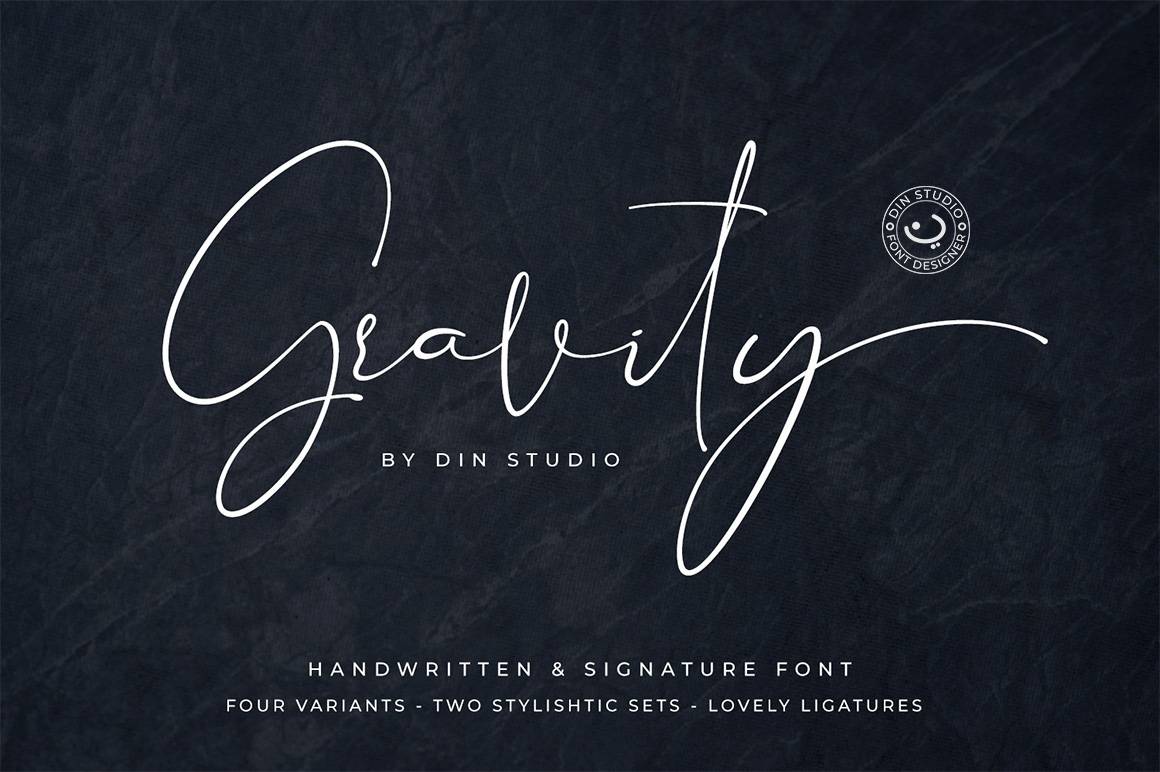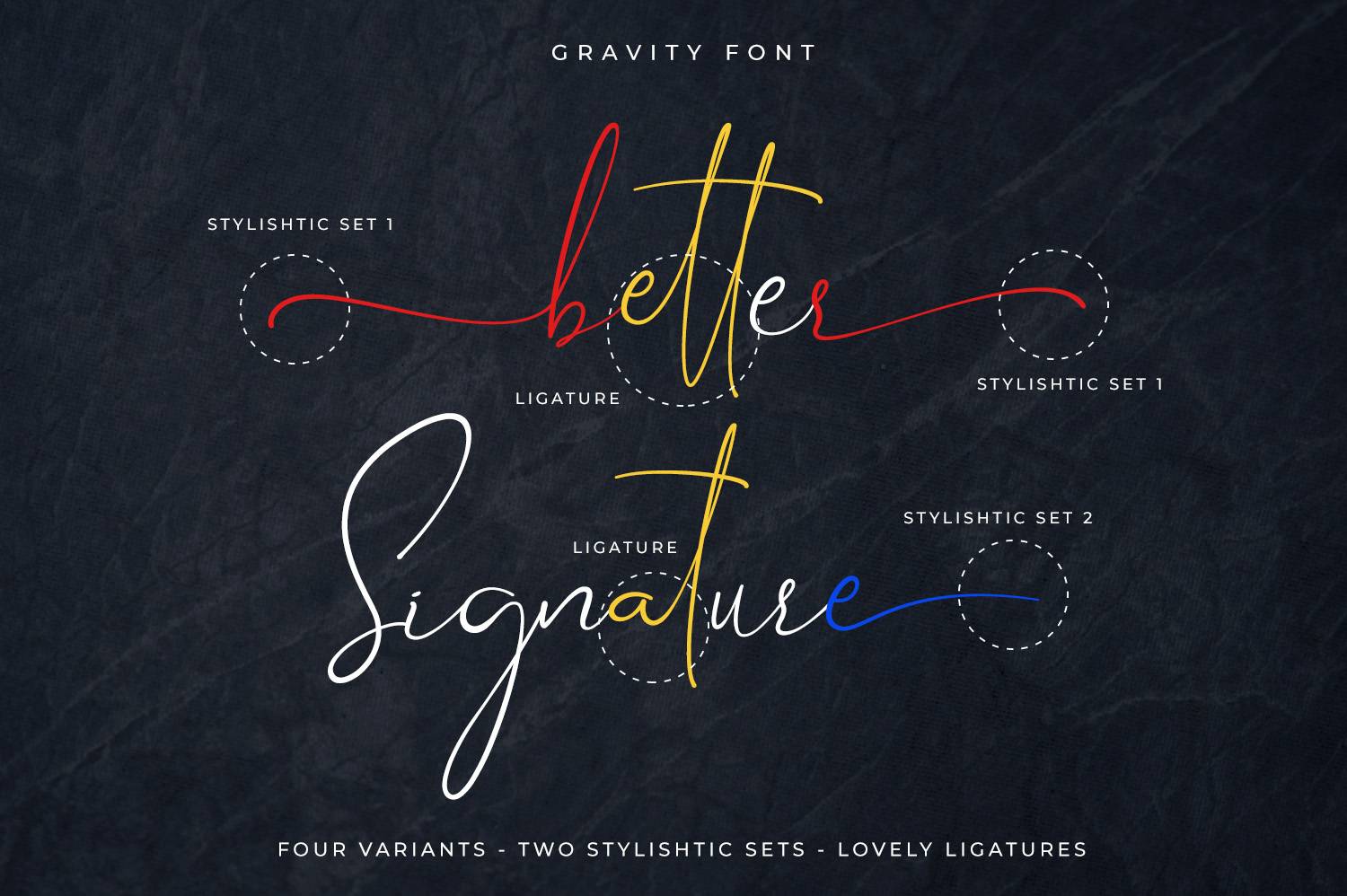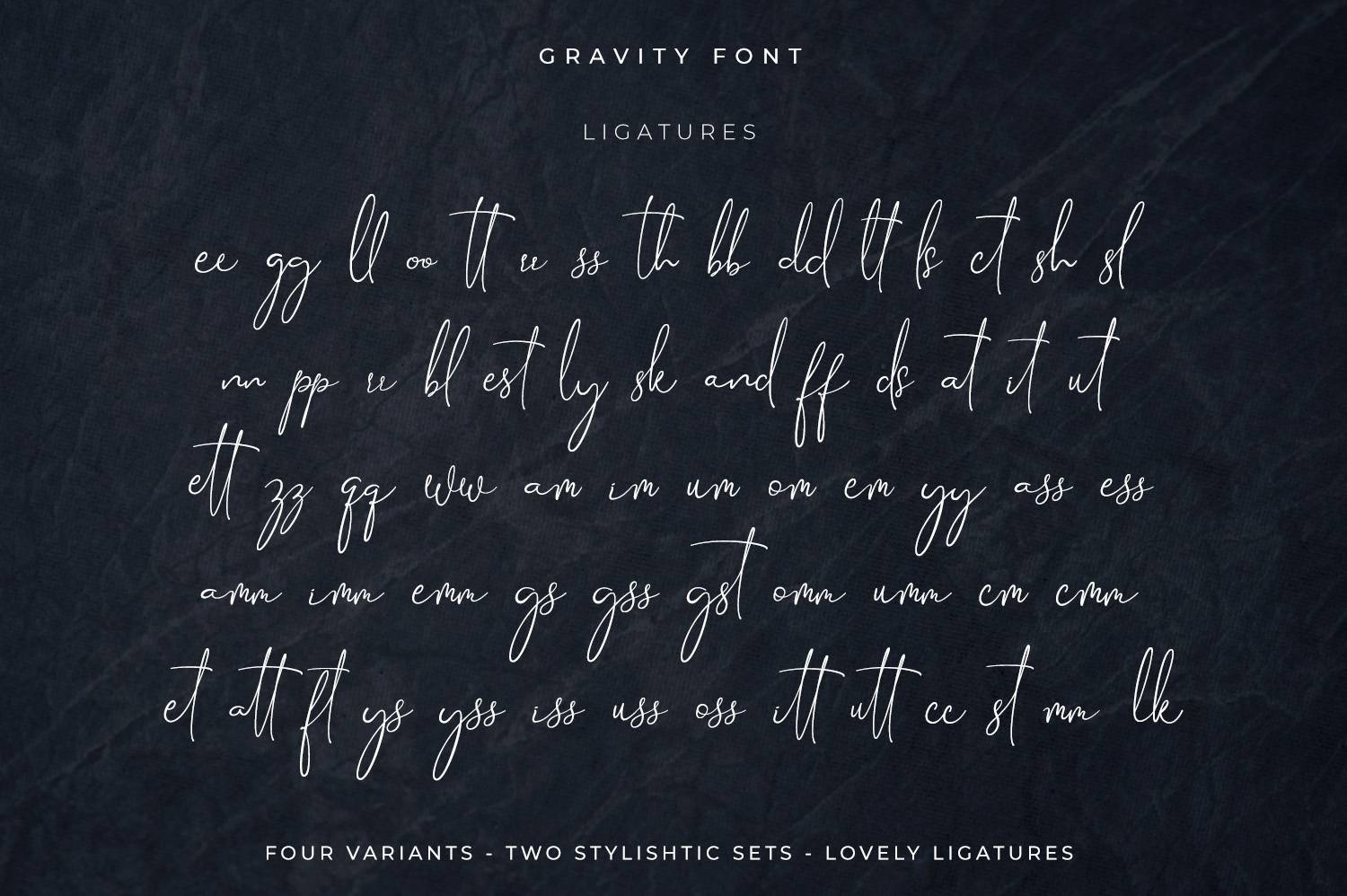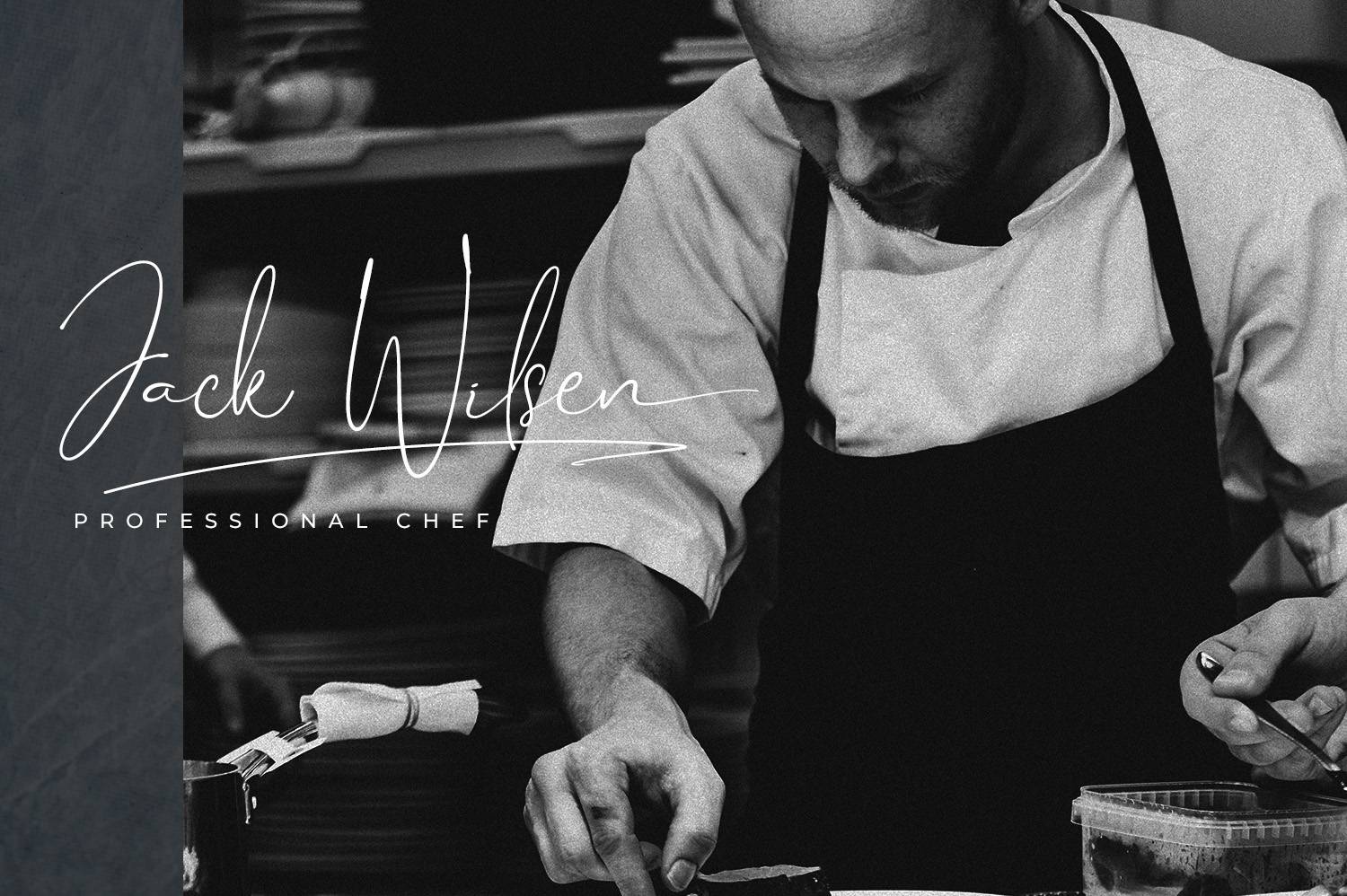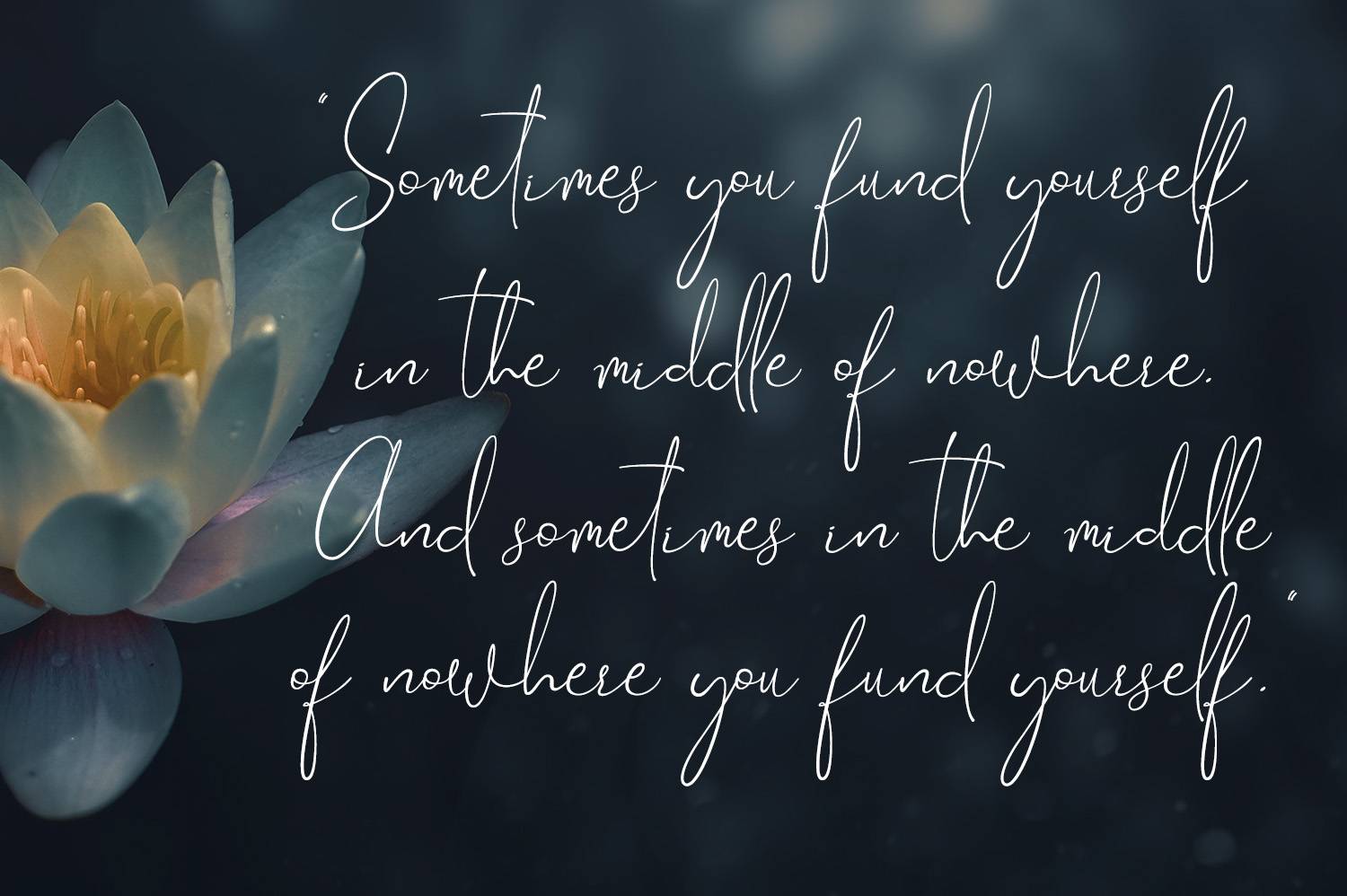
Gravity Handwritten is a delicate and elegant script font that features thin, flowing lines with a natural, handwritten feel. Its tall, narrow letterforms and subtle curves create a sophisticated, airy style perfect for modern branding, invitations, and signature logos. This font works beautifully where a personal, refined touch is desired, adding a graceful and stylish character to any design.
Gravity Handwritten & Signature Font
About Gravity Handwritten & Signature Font
| Font family | Gravity Handwritten & Signature Font |